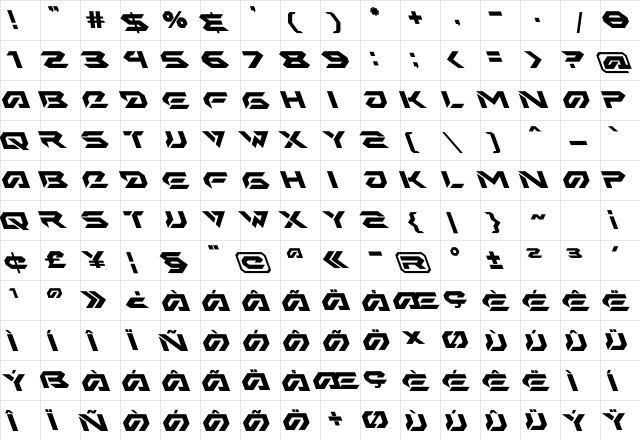
Iron Shark Oblique Regular
Design Context for Iron Shark Oblique Typeface
Iron Shark Oblique is a composed and adaptable typeface that performs quietly and consistently across a wide range of design contexts. The dynamic lean of this cut emphasises speed and emphasis in any layout.
Pro Tip: Use Iron Shark Oblique for emphasis, pull quotes, and subheadings where its slanted energy can add rhythm to the layout.